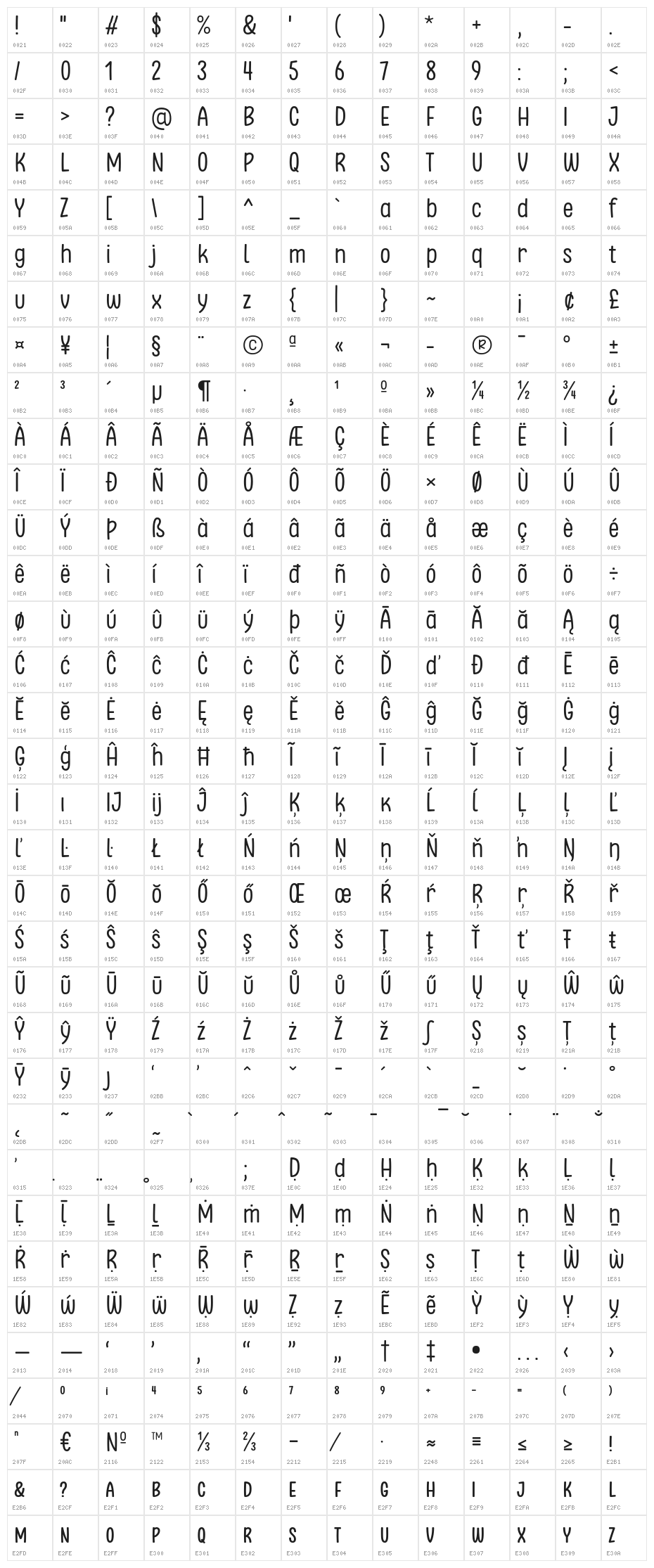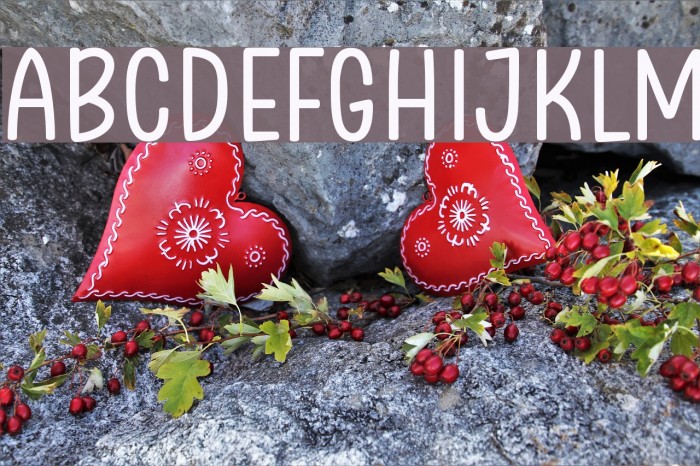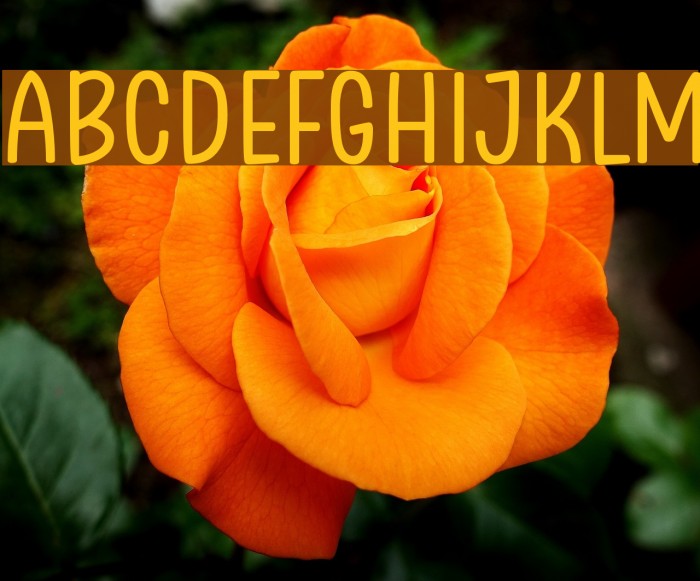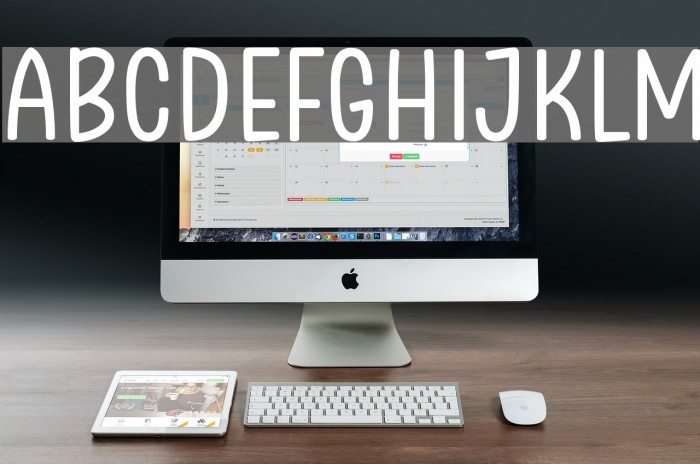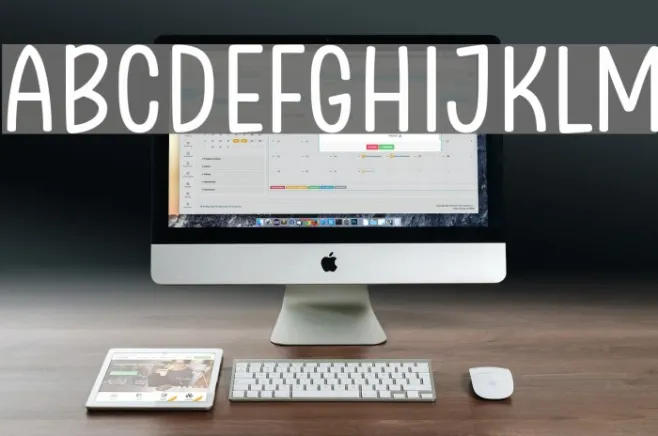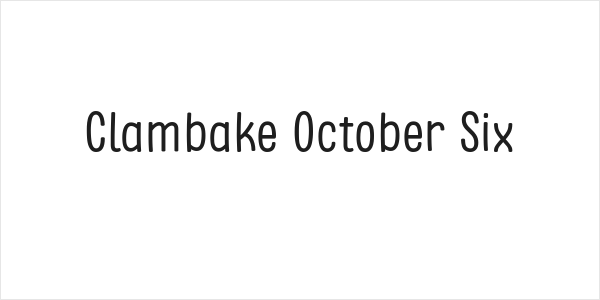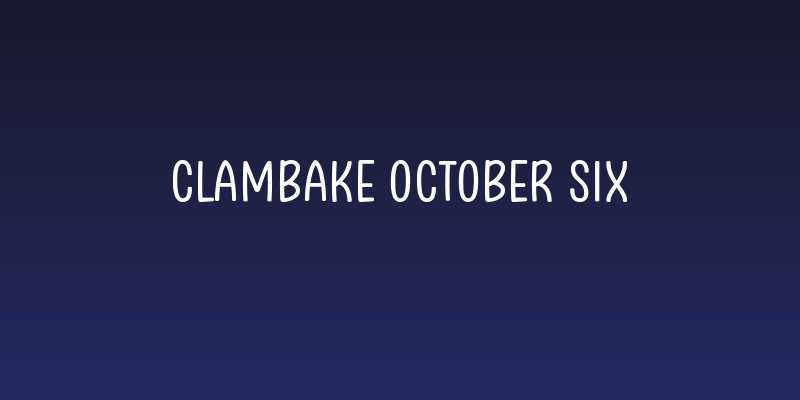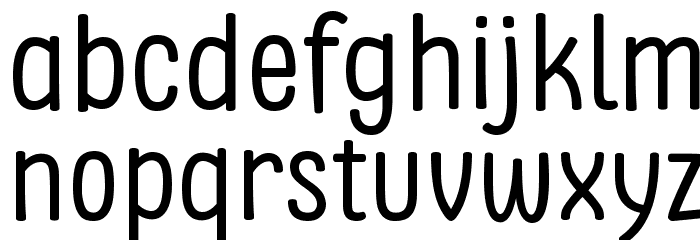
Clambake October Six Font
Clambake October Six Description
This font features a playful and casual style with rounded edges and a handwritten feel. The characters are slightly elongated, giving them a unique and friendly appearance. The uppercase and lowercase letters maintain a consistent style, with smooth curves and a uniform stroke width. The numbers and special characters complement the alphabet with the same playful design, making it versatile for various uses. The overall look is approachable and informal, ideal for projects that require a touch of whimsy and creativity.
| Proposed Projects | Ideal for children's books, greeting cards, playful branding, and casual invitations. |